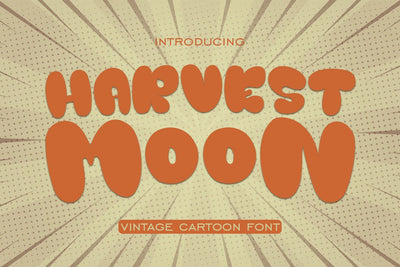
Harvest Moon Cartoon Font
Harvest Moon is a vintage cartoon Font, has a powerful character with a vintage design. This font specialty is good for product design like a Snack pack, Child Book, T-shirt, or you can use for your logo design, typography design, etc. This product is inspirational and playful for your creative design.